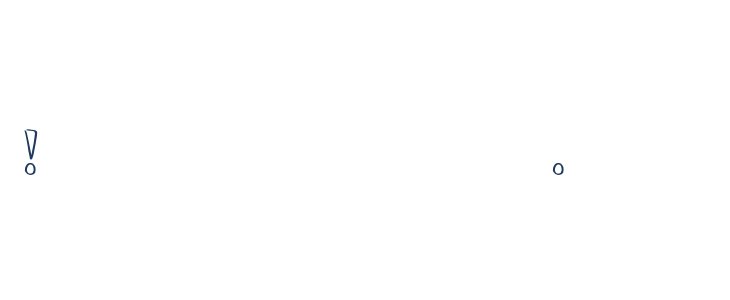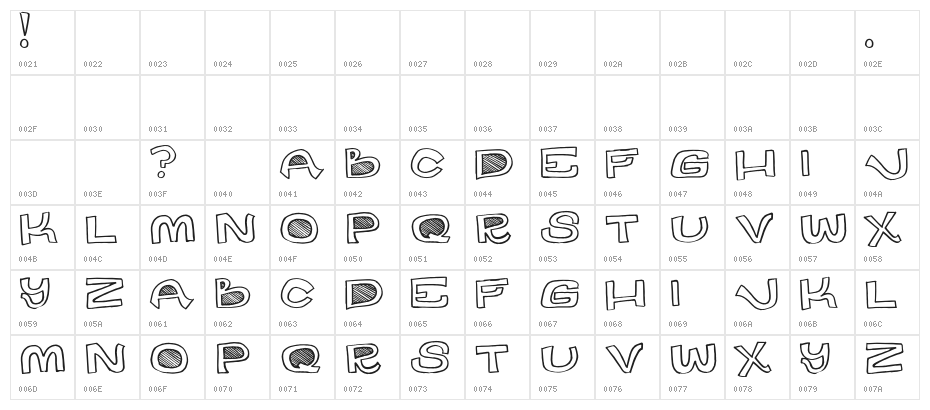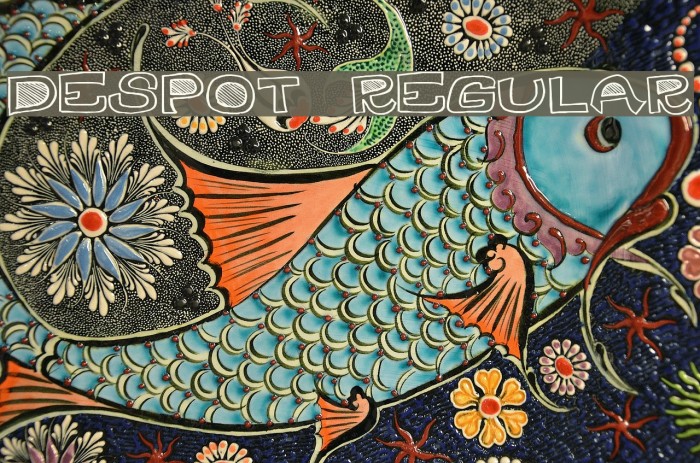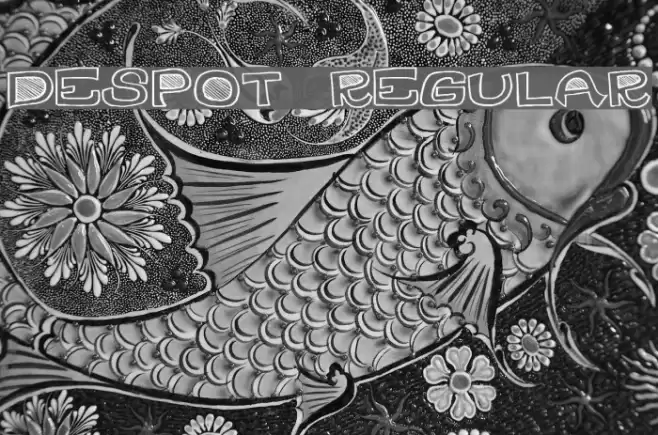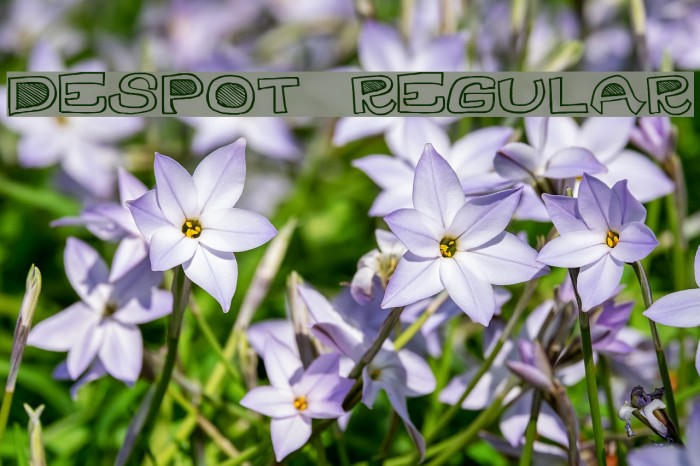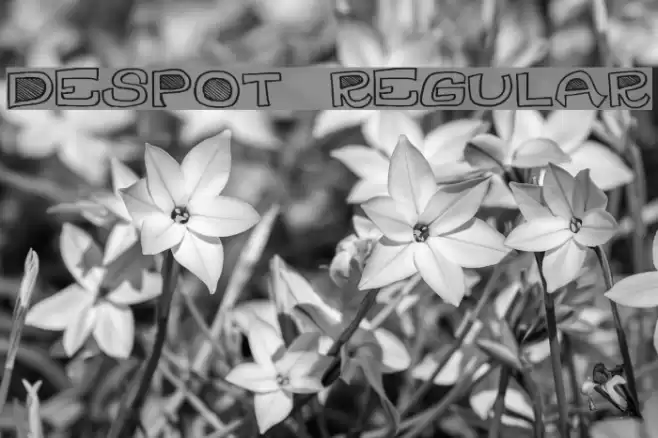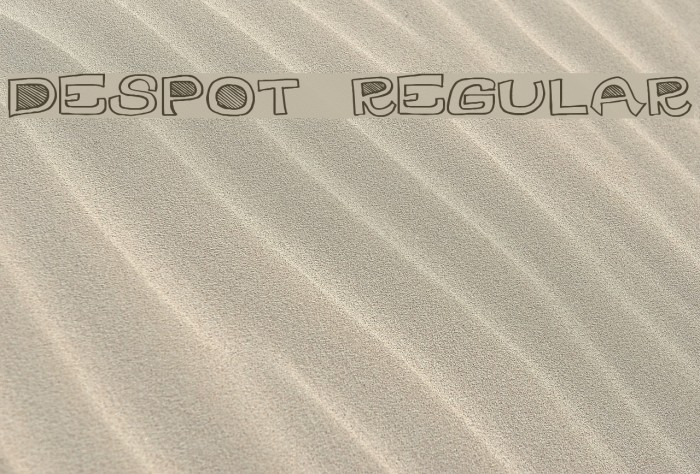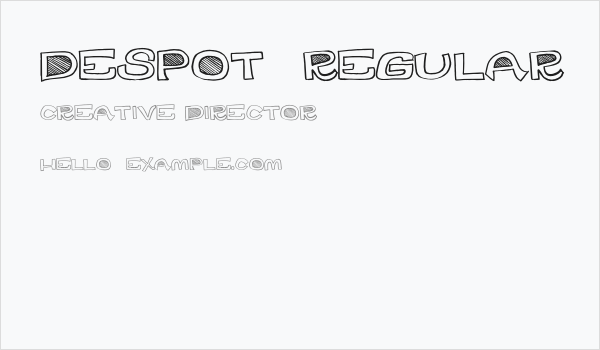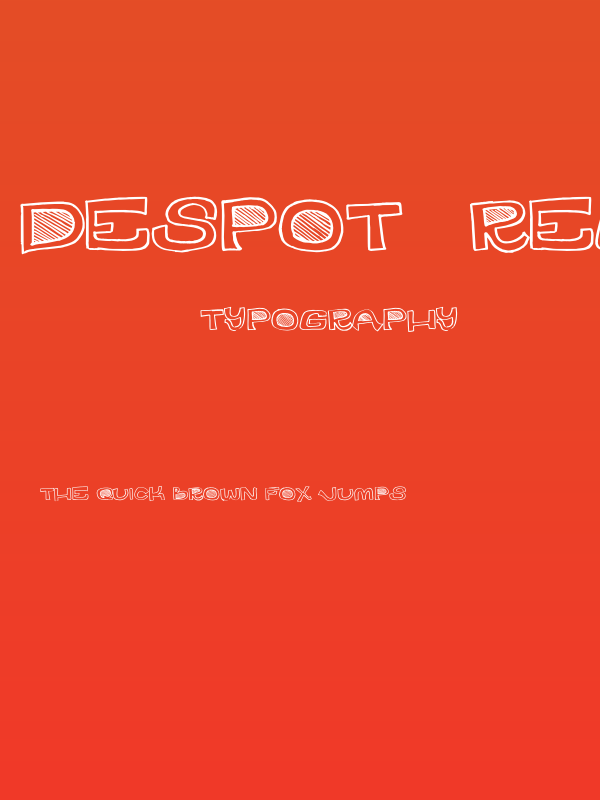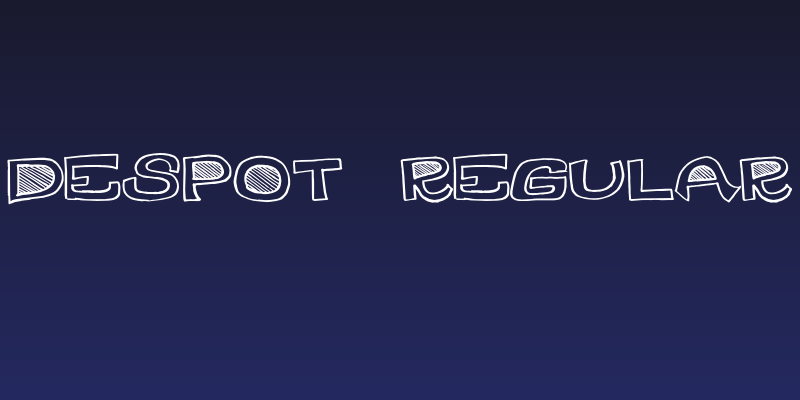
DesPot-Regular Font
DesPot-Regular Description
This font features a playful and decorative style with a hand-drawn appearance. The uppercase letters have a bold outline with a unique pattern inside, giving them a textured look. The characters are slightly irregular, adding to the whimsical feel. The lowercase letters maintain the same style, ensuring consistency throughout. The numbers and special characters follow the same design principles, making them stand out with their bold outlines and intricate patterns. This font is perfect for projects that require a fun and engaging visual element.
| Proposed Projects | Ideal for children's books, comic strips, playful branding, and creative posters. |